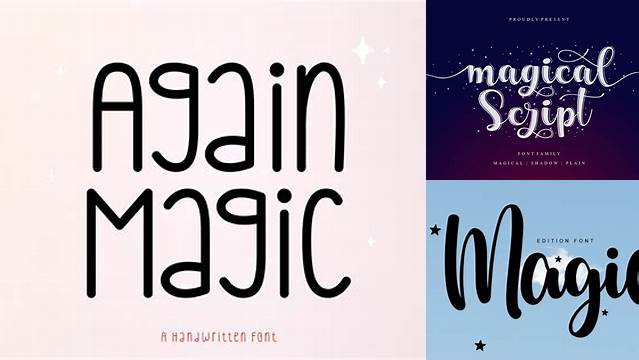
Cursive Fonts: Font Meme Magic!
Hey guys! Ever wondered about those swirly, elegant fonts that seem to pop up everywhere, especially in memes? Well, you've come to the right place! We're diving deep into the world of cursive fonts, exploring everything from their history and uses to their popularity in the meme world. Get ready to become a cursive font aficionado!
1. Understanding Cursive Fonts
So, what exactly are cursive fonts? Simply put, they're fonts that mimic handwriting, with letters flowing into each other in a connected manner. This gives them a distinctively elegant and personal feel, setting them apart from more structured or blocky fonts. The beauty of cursive fonts lies in their fluidity and the way they can add a touch of sophistication to any design. Think about wedding invitations, elegant logos, or even just a handwritten note – cursive fonts often evoke a sense of warmth and authenticity. However, it's not just about pretty looks. Cursive fonts also have a rich history, tracing back to the days of quill and ink. Understanding their origins can give you a greater appreciation for their enduring appeal. From formal scripts to playful hand-lettering styles, the world of cursive fonts is incredibly diverse and offers something for every taste. But choosing the right cursive font is crucial. Too fancy, and your message might become illegible. Too simple, and it might lose its charm. We'll explore these nuances and help you navigate the world of cursive fonts like a pro.
2. The History of Cursive Script
The history of cursive script is a fascinating journey through time, reflecting the evolution of writing itself. It all began with the need for efficiency. Early scribes, using quills on parchment, realized that lifting the pen less often resulted in faster writing. This practical need gave birth to the flowing, connected letters that characterize cursive fonts. Over centuries, different styles of cursive emerged, each reflecting the cultural and artistic trends of its time. From the elegant Chancery Cursive of the Renaissance to the more utilitarian Copperplate script of the 18th century, cursive fonts have always been shaped by their historical context. Imagine the painstaking work of medieval monks, meticulously crafting illuminated manuscripts with elaborate cursive initials. Or picture a 19th-century businessman penning a letter in a crisp, formal script. These historical examples illustrate the diverse applications and enduring importance of cursive fonts. But the story doesn't end there. Even in the digital age, cursive fonts retain their relevance, finding new life in graphic design, branding, and, of course, memes. Understanding the historical roots of cursive script can help you appreciate its versatility and make more informed choices about when and how to use it. Think about the message you want to convey. Does a formal script evoke the right feeling, or would a more modern, hand-lettered style be a better fit? The history of cursive offers a wealth of inspiration and guidance.
3. Popular Types of Cursive Fonts
Okay, let's talk specifics! The world of cursive fonts is vast, but some styles have emerged as perennial favorites. Think about the elegant swirls of a script font like Brush Script, often used for invitations and certificates. Or the classic charm of a calligraphy-inspired font like Edwardian Script, perfect for adding a touch of old-world sophistication. Then there are the more modern and playful options, like hand-lettered cursive fonts that mimic natural handwriting. These are great for adding a personal touch to logos, websites, or social media graphics. Each type of cursive font has its own unique personality and conveys a different message. A formal script might be ideal for a wedding invitation, while a casual hand-lettered font might be better suited for a blog post or a meme. It's all about choosing the right font for the occasion. But how do you even begin to navigate this world of cursive possibilities? Don't worry, we've got you covered. We'll break down the key characteristics of different cursive font styles, helping you to identify your favorites and understand their best uses. Think of this as your guide to becoming a cursive font connoisseur!
4. How to Choose the Right Cursive Font
Choosing the right cursive font can feel like a daunting task, but it doesn't have to be! The key is to consider your project's purpose and the message you want to convey. Are you designing a logo for a high-end brand? A formal, elegant script might be the perfect choice. Creating a fun, casual invitation? A hand-lettered cursive font could be a better fit. Think about the overall tone and style of your design. Does the cursive font complement the other elements, or does it clash? Legibility is another crucial factor. While cursive fonts are beautiful, they can sometimes be difficult to read, especially in large blocks of text. Make sure your chosen font is clear and easy to understand, even at smaller sizes. Experiment with different sizes and weights to see how the font looks in various contexts. Don't be afraid to try out different combinations. Sometimes, pairing a cursive font with a simpler sans-serif font can create a striking and balanced effect. The best way to find the perfect cursive font is to experiment and have fun! Explore different options, play with different styles, and see what resonates with you. With a little practice, you'll develop a keen eye for choosing the right cursive font for any project.
5. Cursive Fonts in Graphic Design
Cursive fonts are a powerful tool in the graphic designer's arsenal. They can add elegance, personality, and a touch of artistry to any project. But like any design element, they need to be used thoughtfully. In logo design, a well-chosen cursive font can help a brand stand out and convey its unique identity. Think of luxury brands that use flowing scripts to evoke a sense of sophistication and exclusivity. In website design, cursive fonts can be used for headings, call-to-actions, or to add visual interest to specific sections. But remember, legibility is key. Don't overuse cursive fonts in large blocks of text. They're best used sparingly, to highlight key elements and add visual flair. In print design, cursive fonts can be perfect for invitations, cards, and other special occasion materials. The handwritten feel of cursive adds a personal touch that can't be replicated with other font styles. But the key to using cursive fonts effectively in graphic design is to understand their strengths and limitations. Experiment with different styles, consider the overall design context, and always prioritize legibility. When used well, cursive fonts can elevate your designs and create a lasting impression.
6. Cursive Fonts and Branding
Branding is all about creating a distinct identity, and cursive fonts can play a significant role in achieving this. A well-chosen cursive font can communicate a brand's personality, values, and target audience. Think about brands that use elegant scripts to convey a sense of luxury, sophistication, or tradition. Or brands that opt for more playful hand-lettered cursive fonts to project a casual, approachable image. The cursive font you choose can be a powerful visual cue, shaping how customers perceive your brand. But it's not just about aesthetics. The cursive font should also be consistent with your brand's overall message and tone. If your brand is modern and minimalist, a traditional script might feel out of place. Conversely, if your brand is rooted in tradition, a contemporary hand-lettered font might not be the right fit. Consider your target audience. What kind of fonts will resonate with them? What kind of image do you want to project? These are all important questions to ask when choosing a cursive font for your brand. Ultimately, the goal is to find a cursive font that is both visually appealing and strategically aligned with your brand's identity. When you get it right, cursive fonts can be a powerful asset in building a strong and memorable brand.
7. Cursive Fonts in Wedding Invitations
Ah, wedding invitations! The perfect canvas for cursive fonts to shine. The elegance and romance associated with cursive scripts make them a natural choice for setting the tone for a special day. A beautifully crafted wedding invitation with a flowing cursive font can instantly evoke a sense of celebration and sophistication. But choosing the right cursive font for your wedding invitations is crucial. Consider the overall style of your wedding. Is it formal and traditional, or more casual and modern? The cursive font should reflect this. For a formal wedding, an elegant script like Edwardian Script or Chancery Cursive might be ideal. For a more relaxed wedding, a hand-lettered cursive font could be a better fit. Legibility is also paramount. Remember, your guests need to be able to read the invitation! Choose a cursive font that is clear and easy to understand, even at smaller sizes. You can also pair the cursive font with a simpler sans-serif font for the body text to ensure readability. Think about the color scheme and overall design of your invitations. The cursive font should complement these elements. Experiment with different weights and sizes to see what looks best. Ultimately, your wedding invitations are a reflection of your personal style as a couple. Choose a cursive font that you love and that captures the essence of your special day.
8. Cursive Fonts for Logos
Logos are the face of a brand, and the font you choose plays a huge role in shaping that first impression. Cursive fonts can be a powerful choice for logos, adding a touch of elegance, personality, or even a handcrafted feel. But using cursive fonts in logos requires careful consideration. A cursive font can instantly convey a sense of luxury, sophistication, or artistry. Think of brands in the fashion, beauty, or hospitality industries that often use flowing scripts in their logos. But cursive fonts can also be used to create a more casual and approachable brand image. Hand-lettered cursive fonts can evoke a sense of authenticity and personality, making a brand feel more relatable. The key is to choose a cursive font that aligns with your brand's values and target audience. Consider the legibility of the cursive font, especially at smaller sizes. Your logo needs to be recognizable and readable in various contexts, from business cards to website headers. Test your logo with different cursive fonts to see what works best. Get feedback from others to ensure that your logo effectively communicates your brand message. A well-designed logo with a cursive font can be a powerful asset, helping your brand stand out and make a lasting impression.
9. Cursive Fonts in Social Media Graphics
Social media is a visual playground, and cursive fonts can be a fantastic way to add flair and personality to your graphics. Whether you're creating Instagram stories, Facebook posts, or Twitter headers, a well-chosen cursive font can help your content stand out from the crowd. But like any design element, cursive fonts should be used strategically on social media. Think about the overall tone and style of your brand. Does a cursive font align with your brand's personality? A formal script might be perfect for a luxury brand, while a hand-lettered cursive font could be a better fit for a casual, creative brand. Consider the readability of your cursive font, especially on small screens. Choose a font that is clear and easy to understand, even when viewed on a mobile device. Use cursive fonts sparingly, to highlight key elements and add visual interest. Overusing cursive fonts can make your graphics look cluttered and difficult to read. Experiment with different font pairings. A cursive font can look great when paired with a simpler sans-serif font. Think about the overall visual aesthetic of your social media feed. Does the cursive font complement your other design elements? By using cursive fonts thoughtfully, you can create social media graphics that are both visually appealing and engaging.
10. Cursive Fonts in Memes
Now, let's get to the fun part: cursive fonts in memes! Yes, those swirly, handwritten-style fonts have found a home in the meme world, adding a touch of irony, sarcasm, or just plain silliness to our favorite internet jokes. But why are cursive fonts so popular in memes? Well, it's often about the contrast. The elegance of a cursive font juxtaposed with a humorous image or caption can create a comedic effect. Think of the classic meme formats that use cursive fonts to add a layer of irony or sarcasm. The unexpected use of a formal-looking font can amplify the humor and make the meme even more shareable. But not all cursive fonts are created equal in the meme world. Some fonts are more popular than others, and some are better suited for certain types of memes. For example, a bold, playful cursive font might be perfect for a lighthearted meme, while a more elegant script might be used to create a sense of irony or sophistication. The key is to understand the context and choose a cursive font that enhances the humor of the meme. So next time you see a meme with a cursive font, take a moment to appreciate the subtle comedic effect it creates. It's just one more way that cursive fonts continue to surprise and delight us.